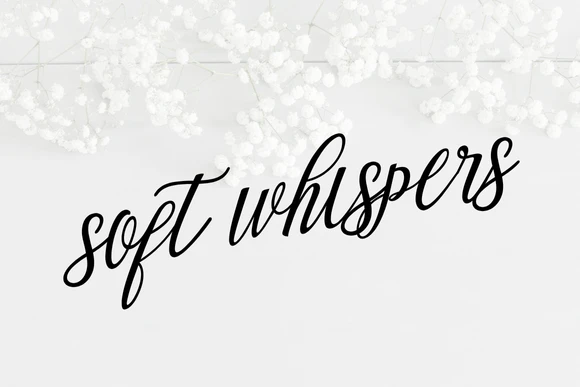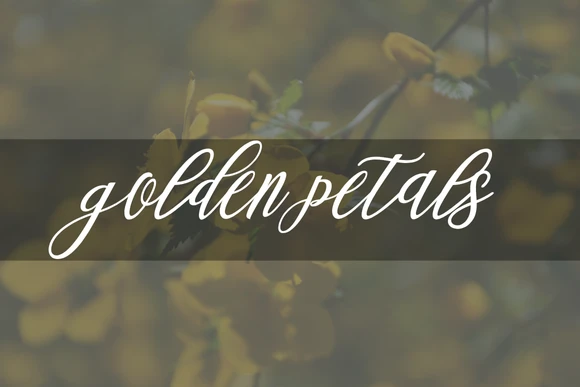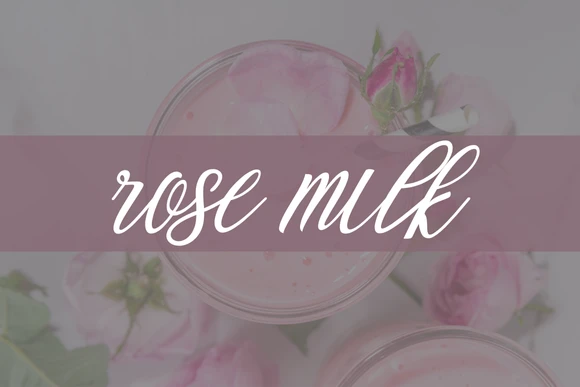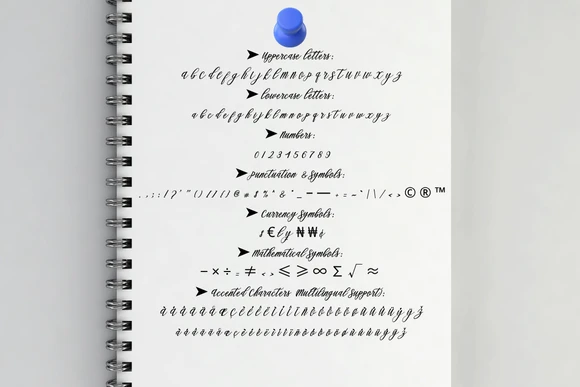
Bring heartfelt charm to your designs with the Love You Font, a beautiful romantic handwritten script perfect for weddings, Valentine’s projects, branding, greeting cards, and more. Its elegant flowing letters and smooth curves give your work a warm, personal feel. Whether you’re creating invitations, logos, quotes, or DIY crafts, the Love You Font adds a timeless touch of love and sophistication.
High-quality, easy-to-use script font
Works for wedding stationery, Valentine’s cards, quotes, branding, logos & more